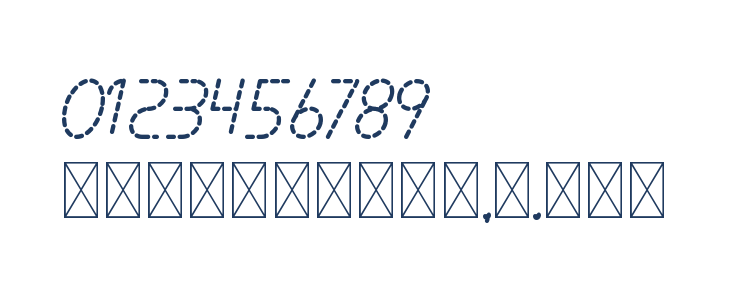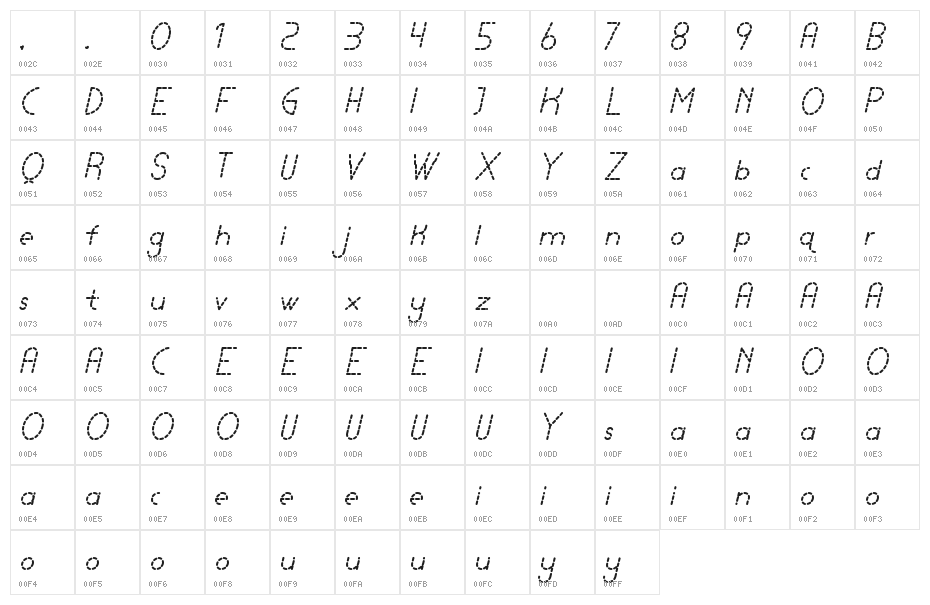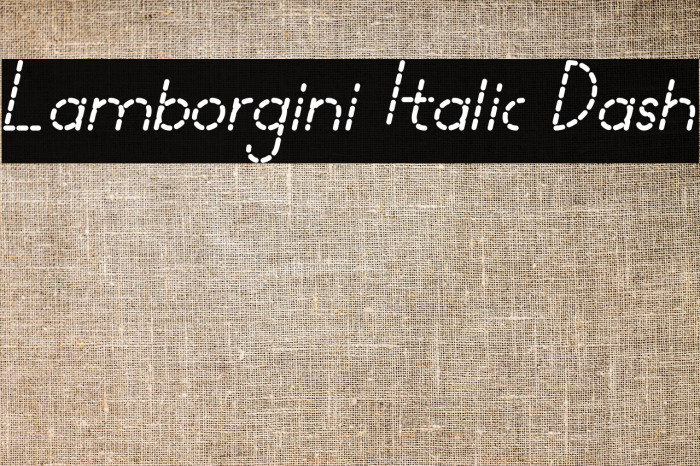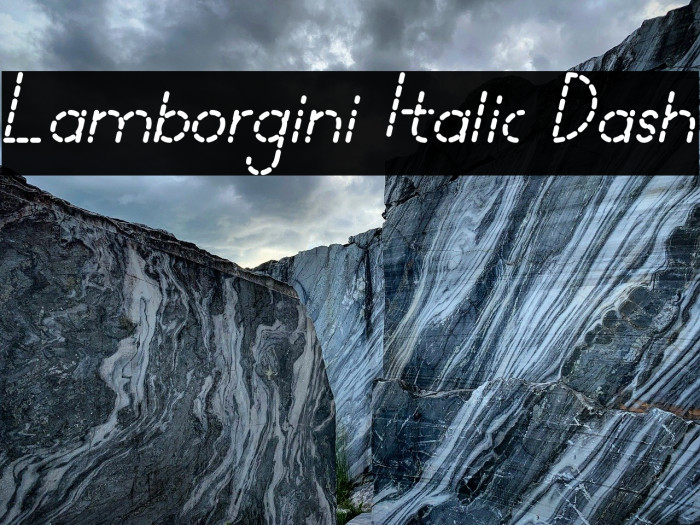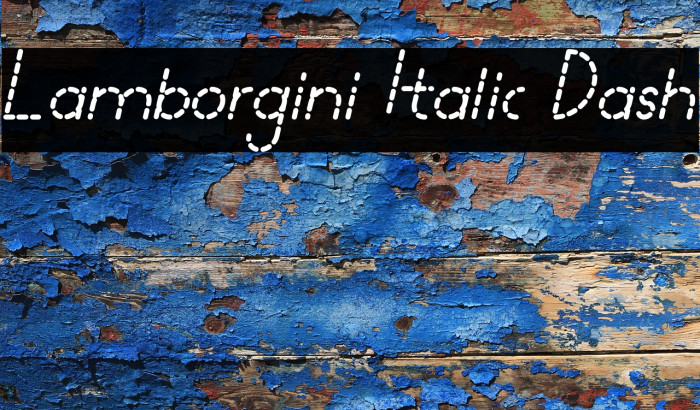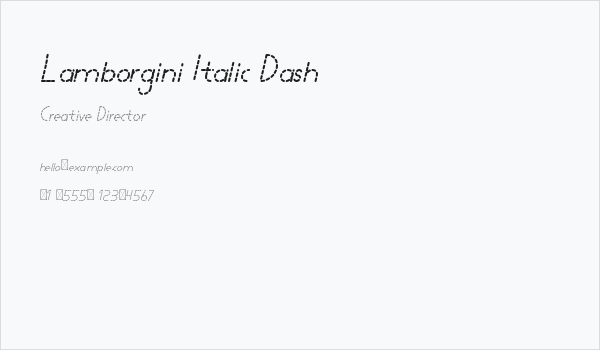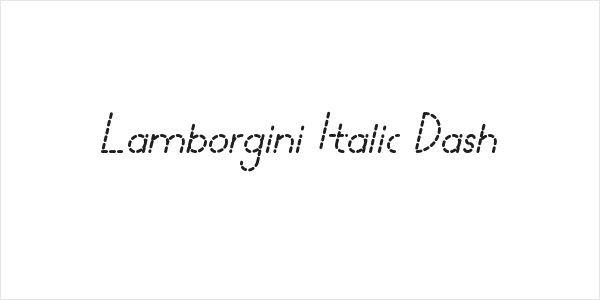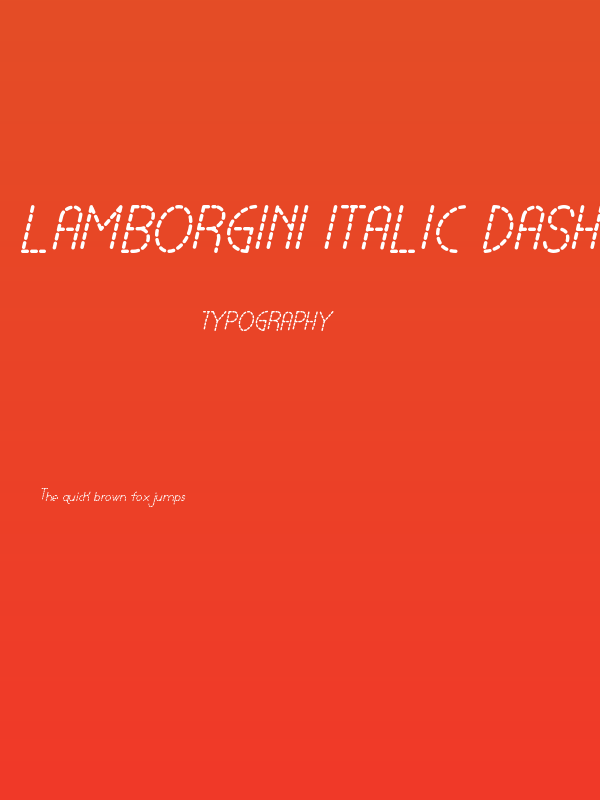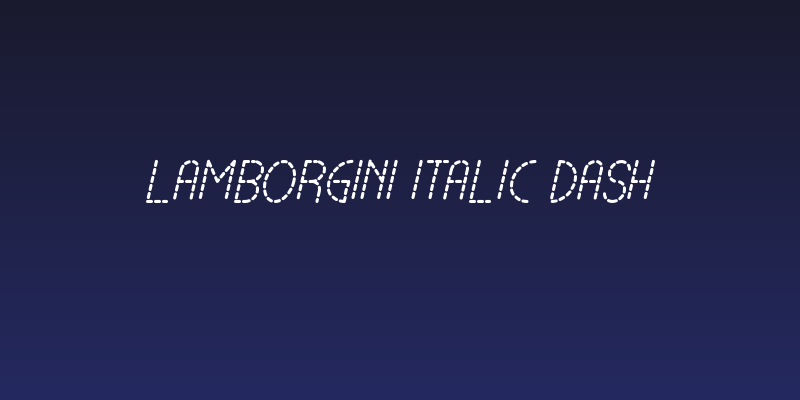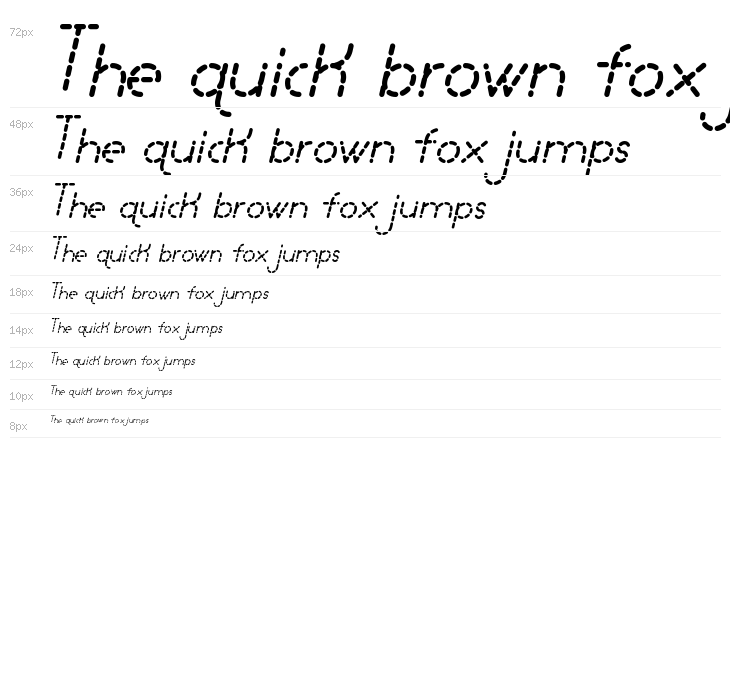
Lamborgini Italic Dash Font
Lamborgini Italic Dash Description
This font features a unique dashed line style that gives it a dynamic and playful appearance. The characters are italicized, adding a sense of motion and fluidity. Each letter and number is composed of evenly spaced dashes, creating a cohesive and consistent look across the entire set. The font maintains a modern and innovative aesthetic, making it suitable for creative projects that require a distinctive and eye-catching typeface. The spacing between characters is normal, ensuring readability while maintaining its decorative appeal. This font is ideal for projects that aim to stand out with a contemporary and stylish design.